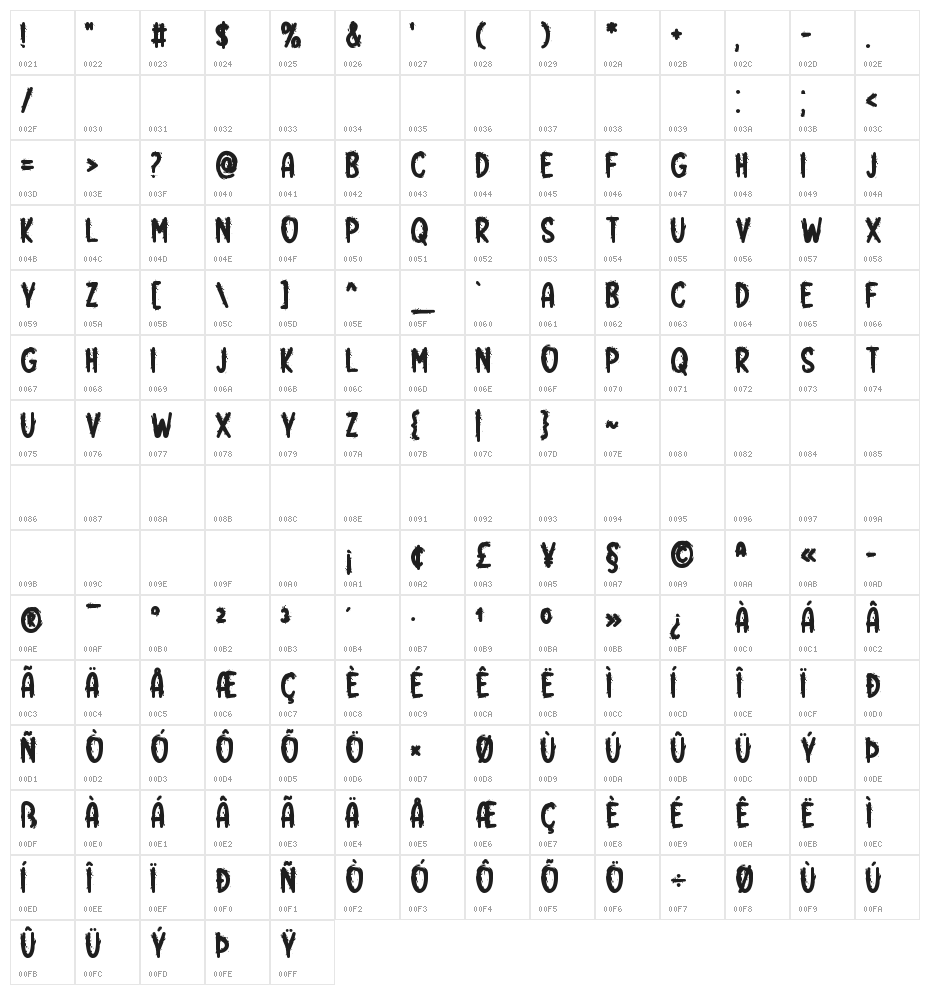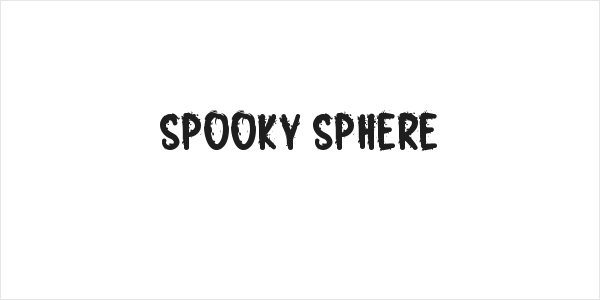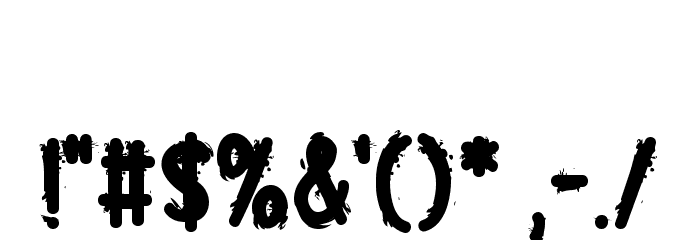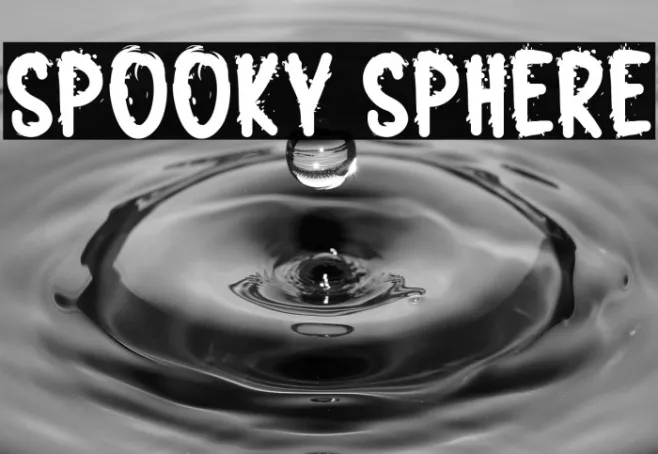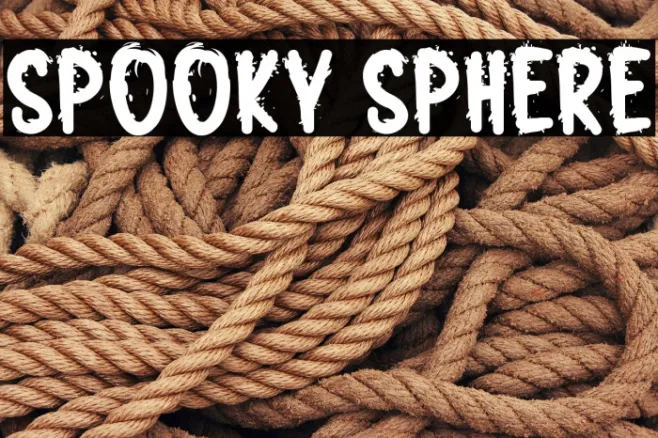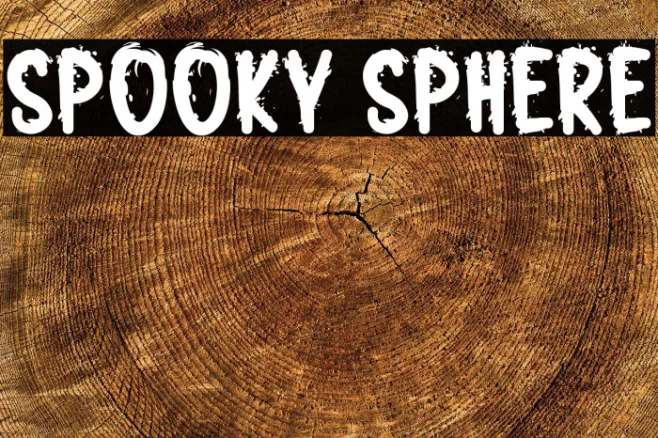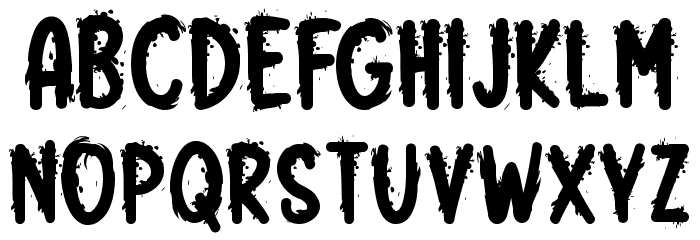
Spooky Sphere Font
Spooky Sphere Description
This font features a bold and dramatic style with a distressed, grungy texture that gives it a spooky and eerie appearance. The characters are designed with irregular edges and splatter-like details, reminiscent of horror or Halloween themes. The uppercase and lowercase letters maintain a consistent width, while the numbers and special characters follow the same stylistic approach, ensuring a cohesive look. The font's unique design makes it stand out, capturing attention with its bold presence and artistic flair.
| Use Case | Headlines, Posters, Logos |
| Proposed Projects | Ideal for Halloween-themed designs, horror movie posters, spooky event invitations, and themed merchandise. |